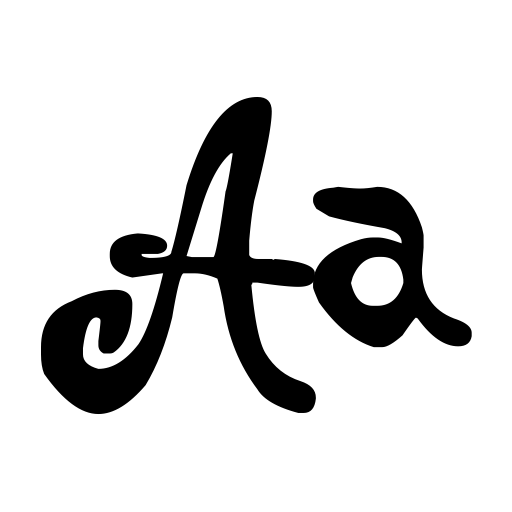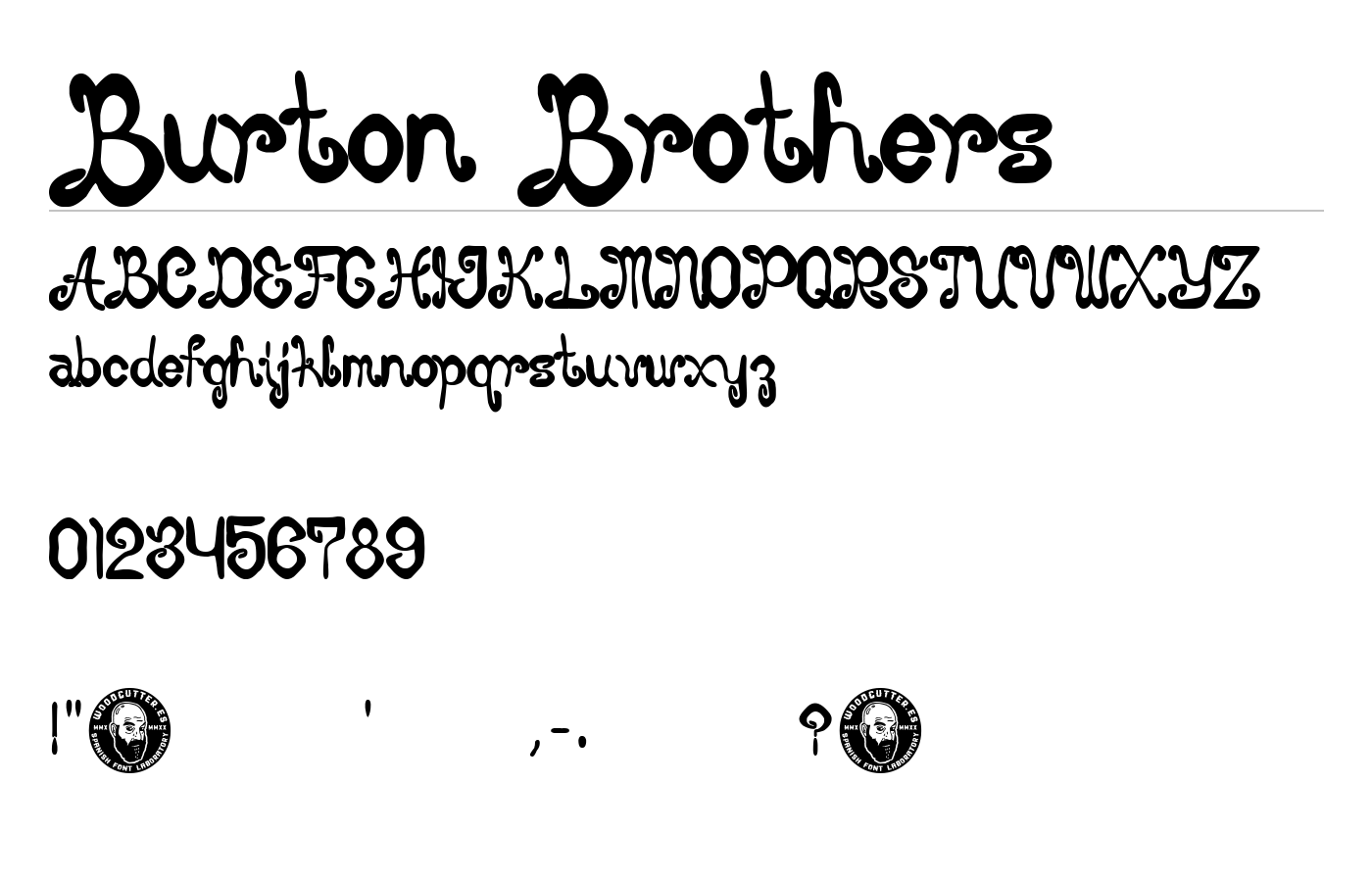
Burton Brothers is a playful, decorative serif font with whimsical, curly letterforms that create a lively and unique appearance. Its bold weight, tight spacing, and distinctive character shapes make it ideal for eye-catching headlines, logos, and creative branding where a fun, vintage-inspired personality is desired. This font works best in display contexts where its quirky style can shine and add character to packaging, posters, and artistic projects.
Burton Brothers Font
About Burton Brothers Font